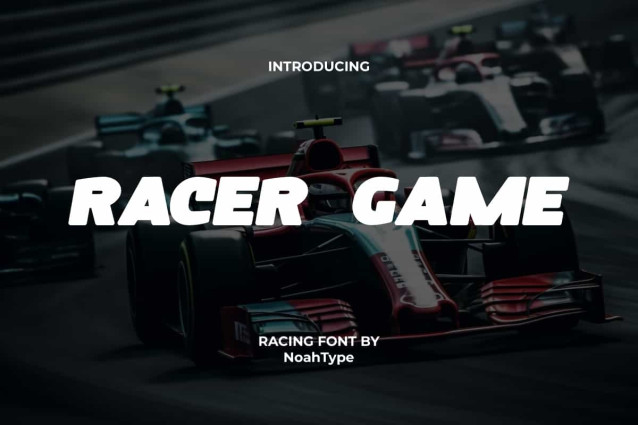
Racer Game Font
Racer Game Font is a modern and stylish racing display font inspired from some games tittles. This font has a basic style so it can be used in a variety of designs and paired with other font types. It will be perfect for any projects, such as custom design, signage, invitation, label, brand image, cover, menu, poster, printing, product packaging, quotes, website, and many more!
Racer Game Font includes full set of ALL CAPS for Uppercase and Lowercase Basic Characters, Numerals, Punctuation, and Symbol. This casual font will make your design standout and also a perfect choice for many industries, such as fashion, automotive, sports, game, racing, movie, accessories, advertising, art, café, event or festival, printing, publishing, etc.